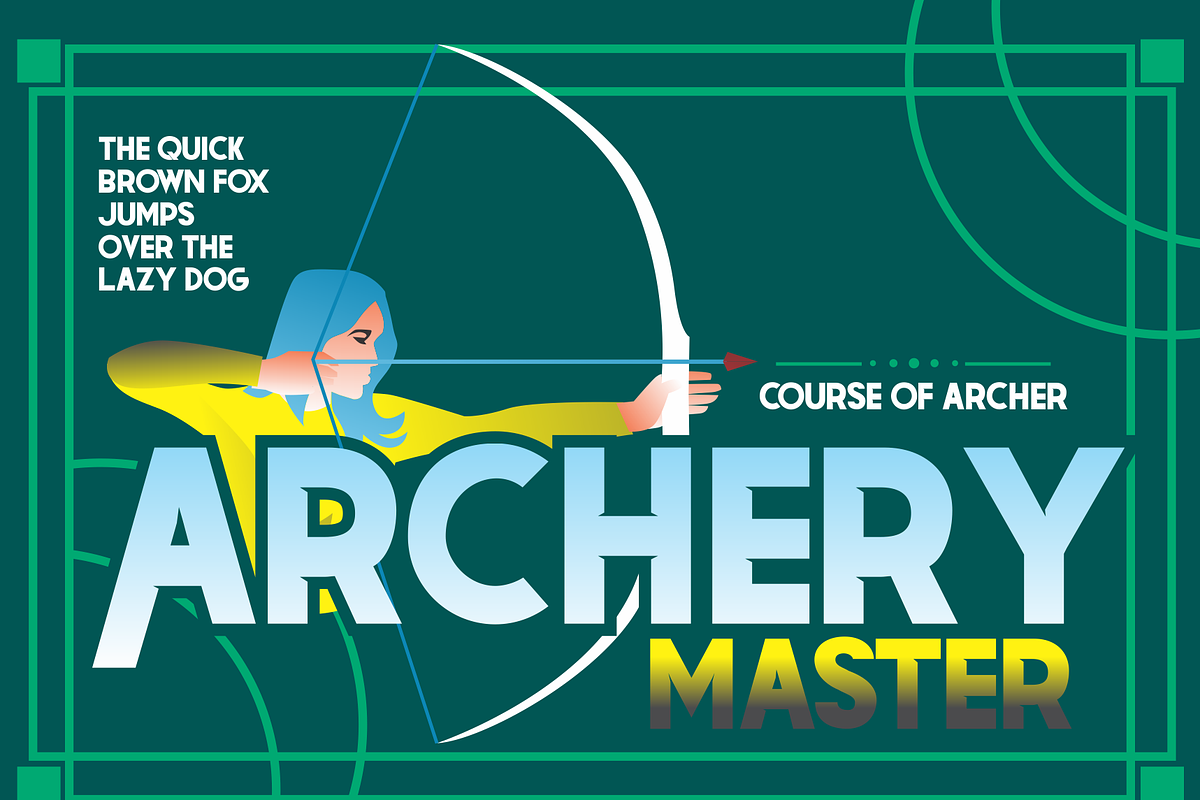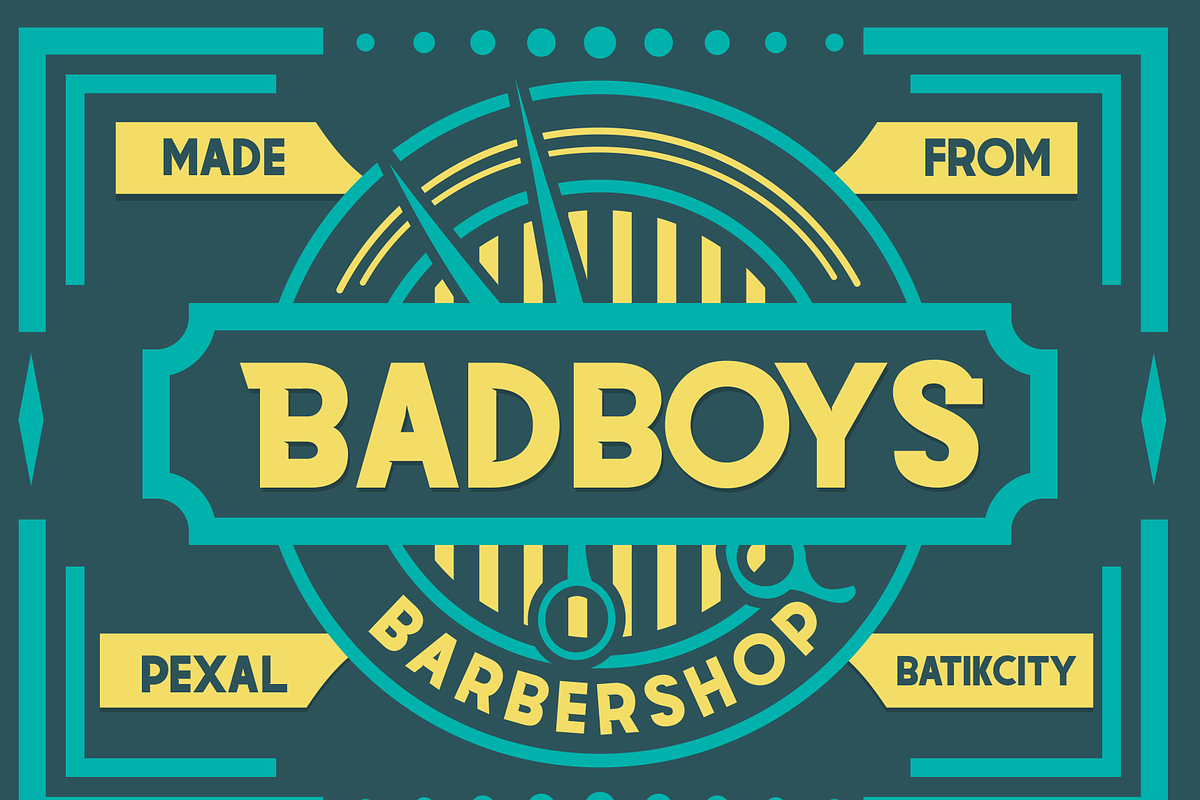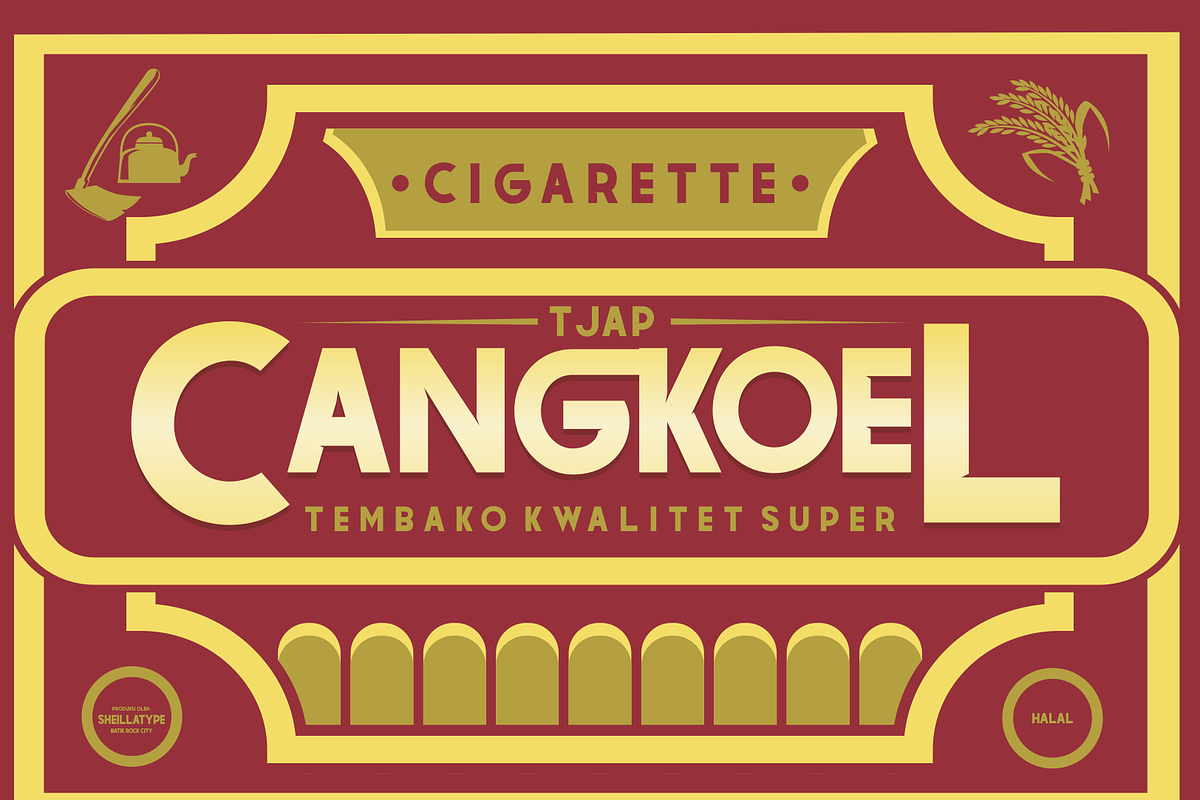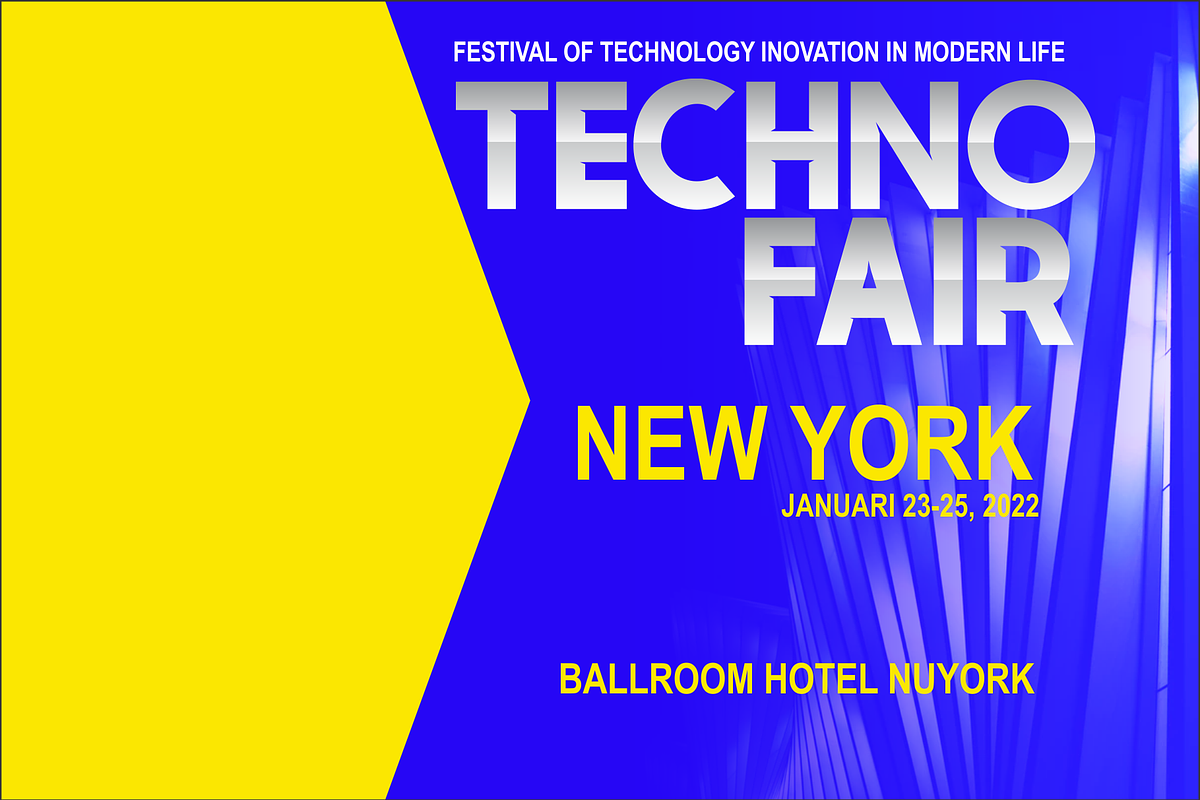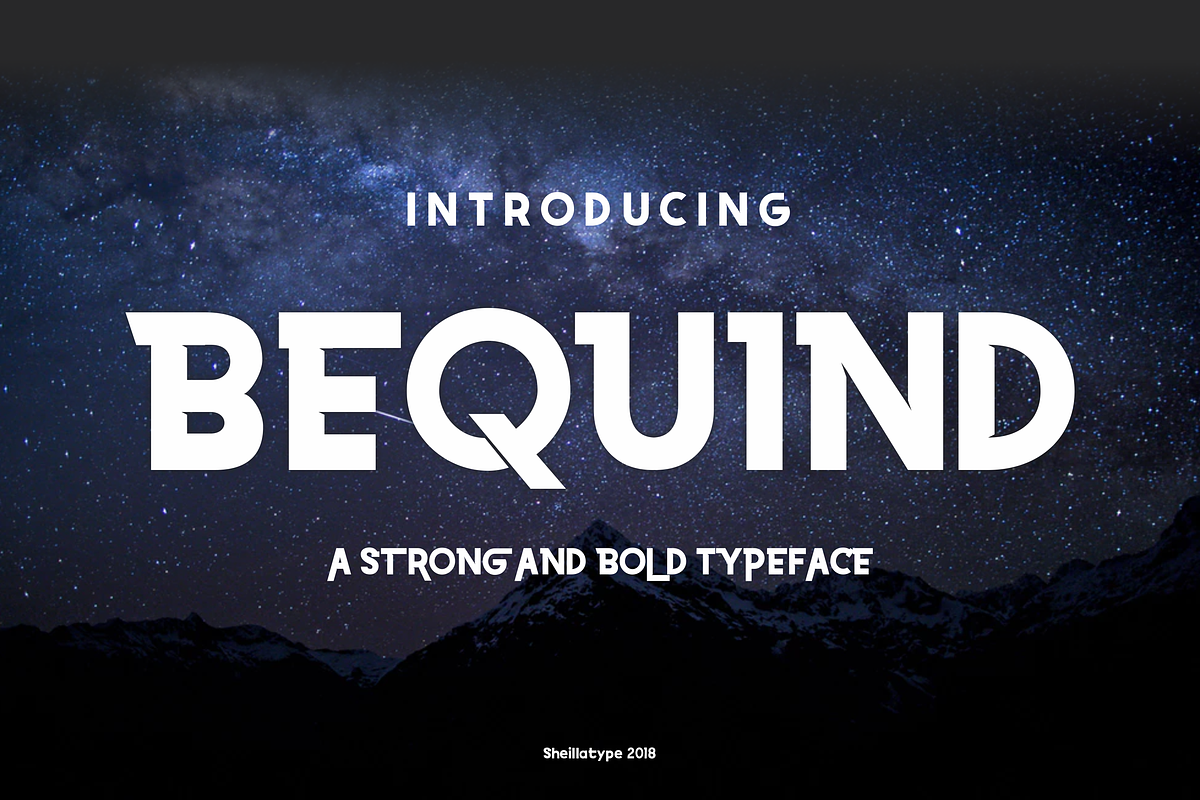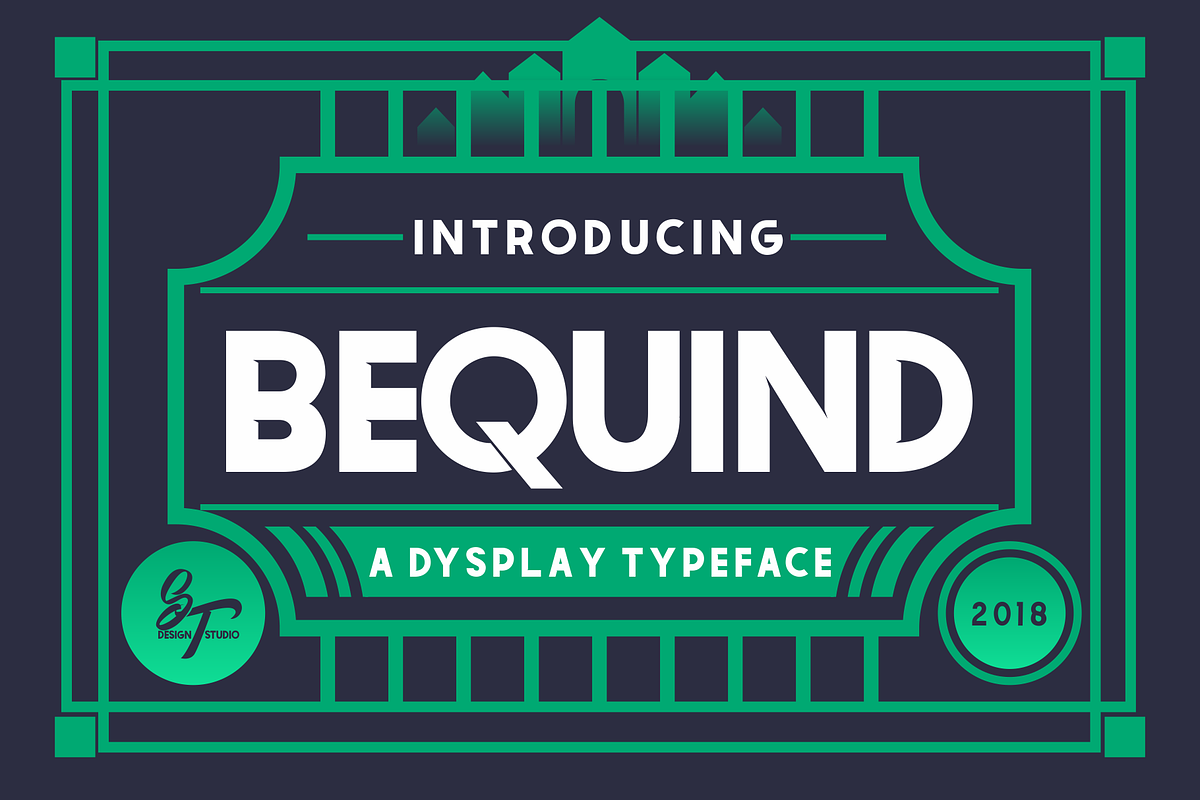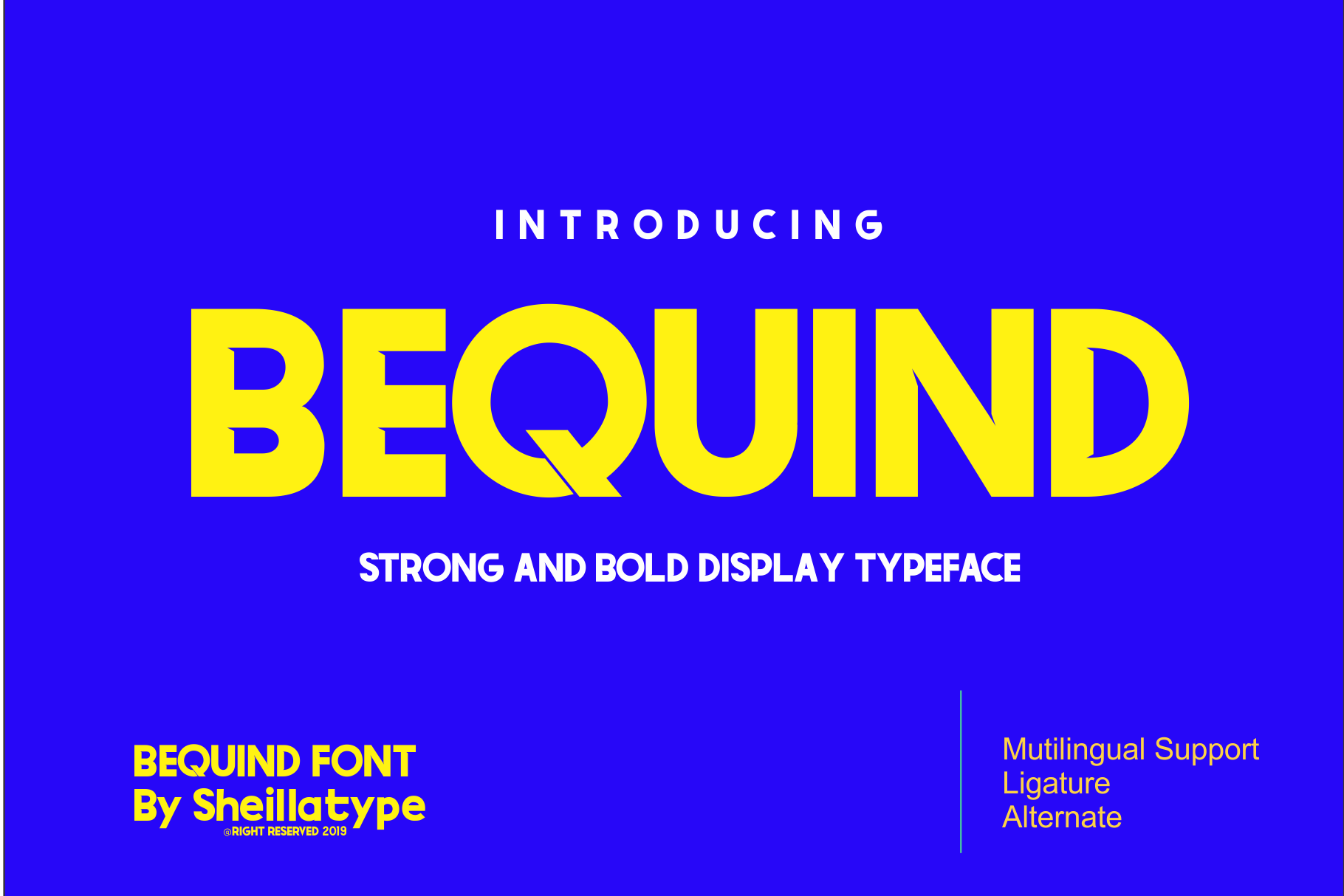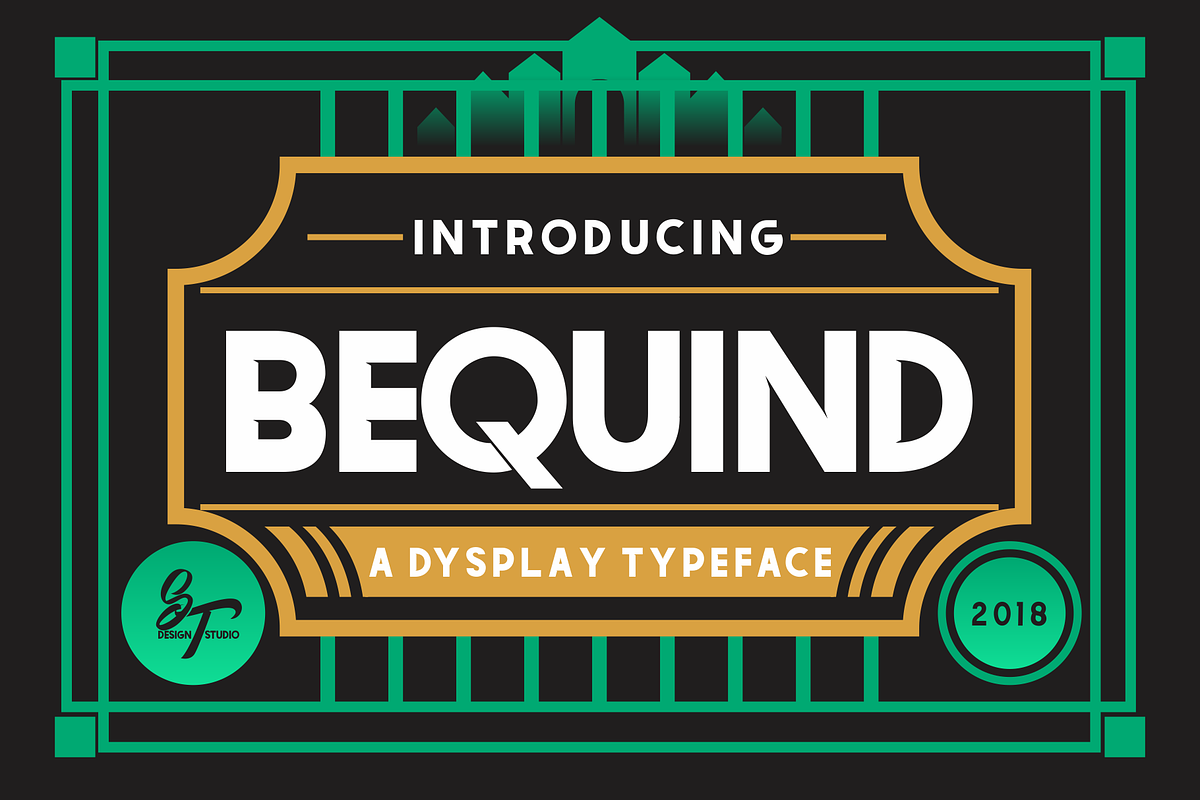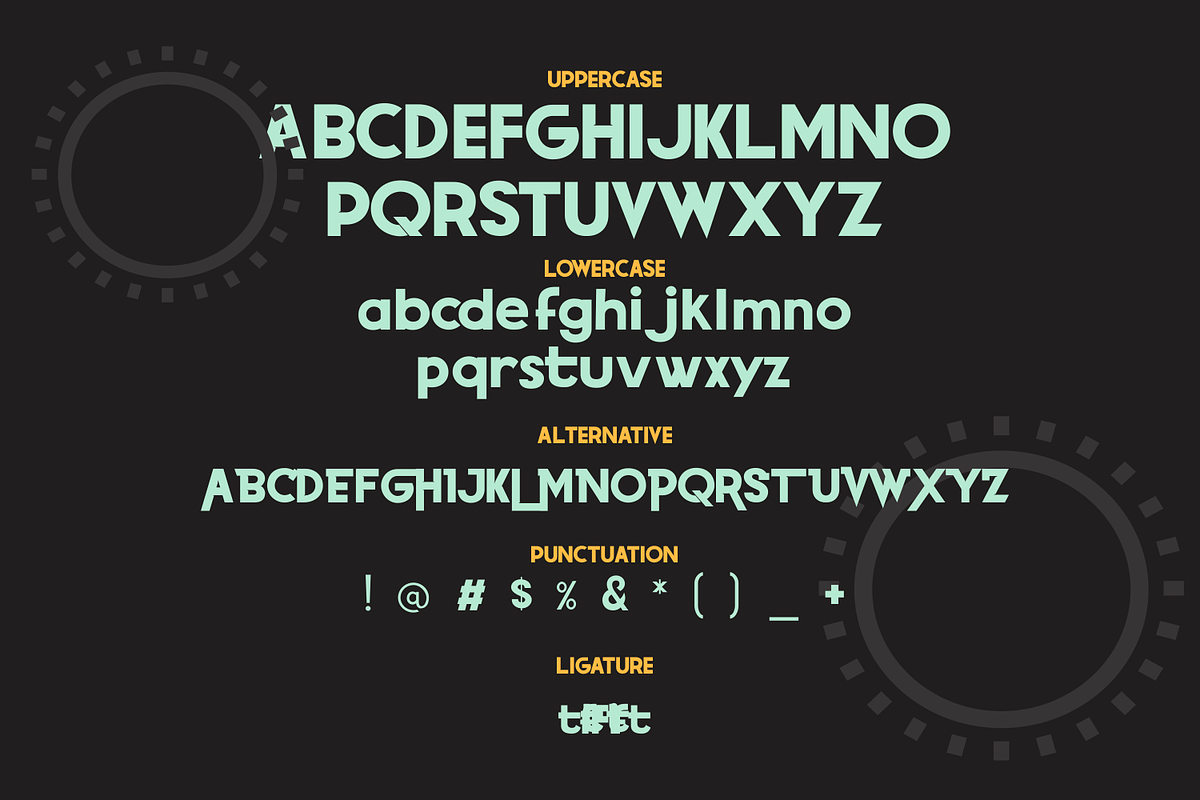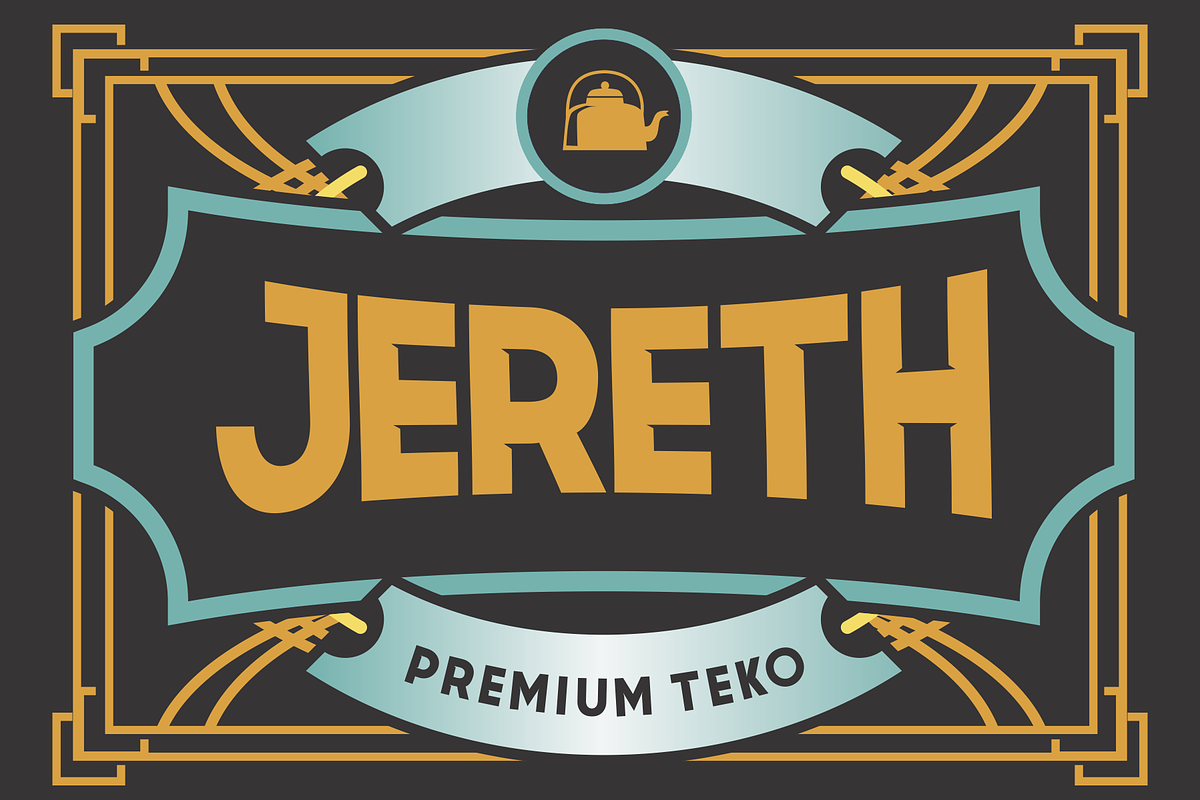
BEQUIND display font Bold and style
BEQUIND is a type of font that has a strong and modern impression, categorized in the DISPLAY font family, so this font is suitable for design purposes such as:
-Branding Logo -Font Logo - T-shirt Design Apparel -Poster / Movie Monogram and others
This font has an opentype feature, contains several alternative fonts, ligature, punctuation, please try this font as an option for your design and business needs.